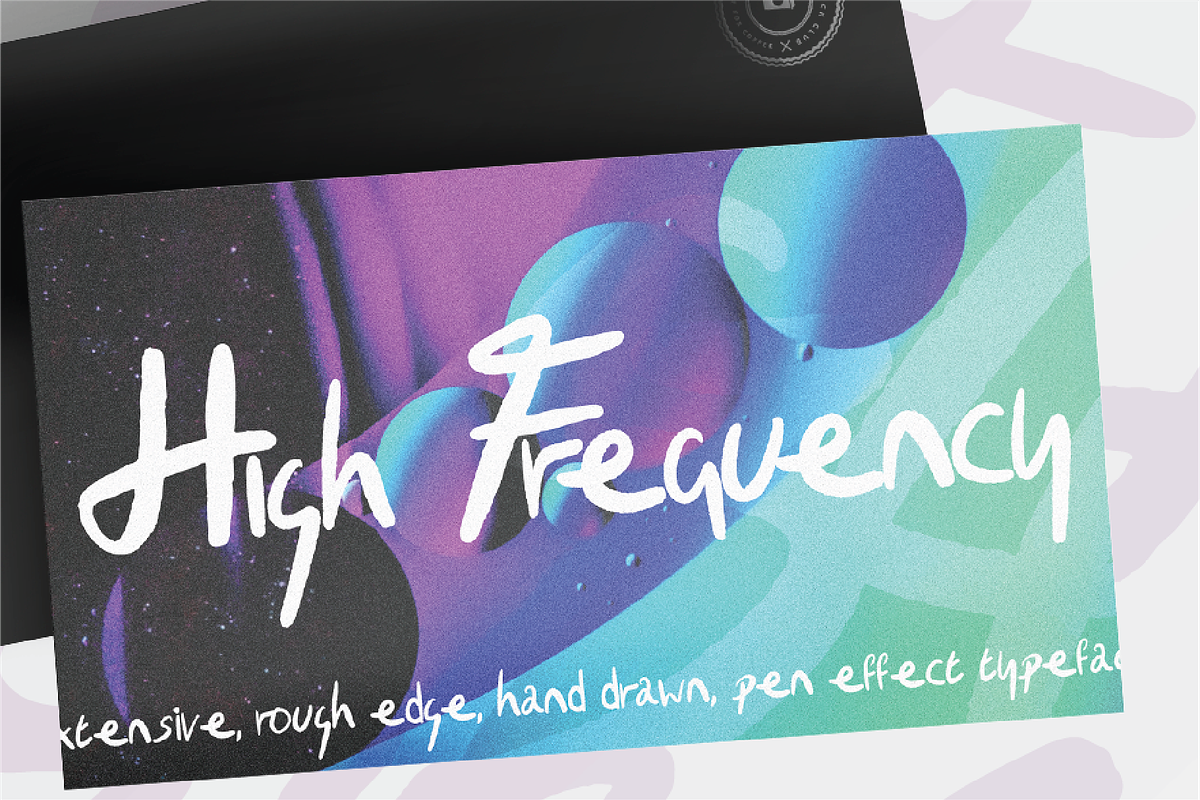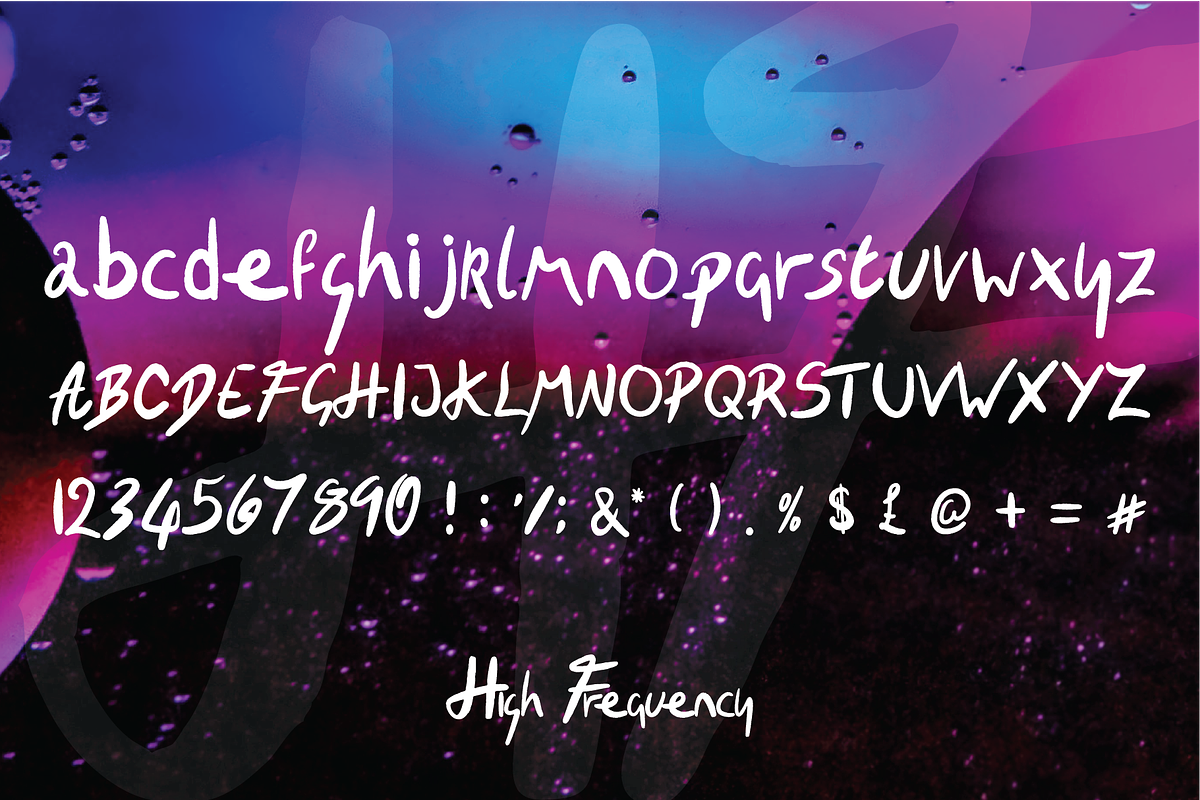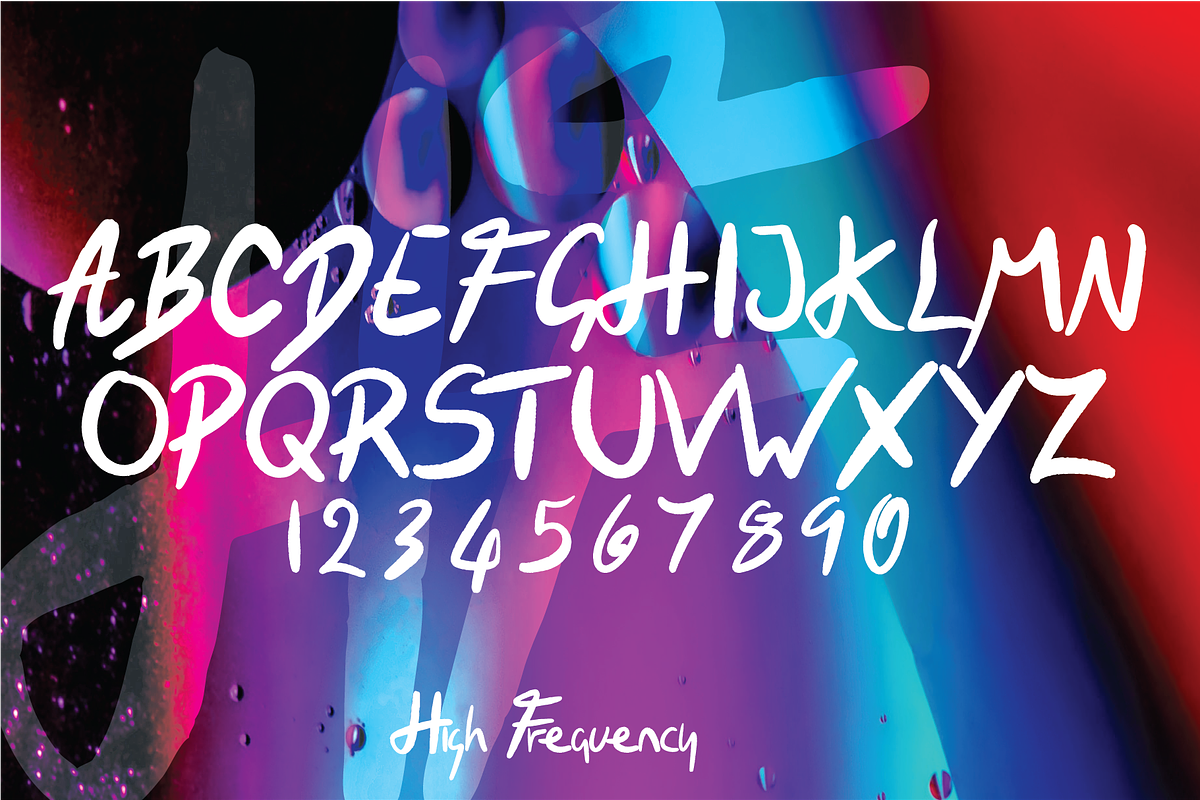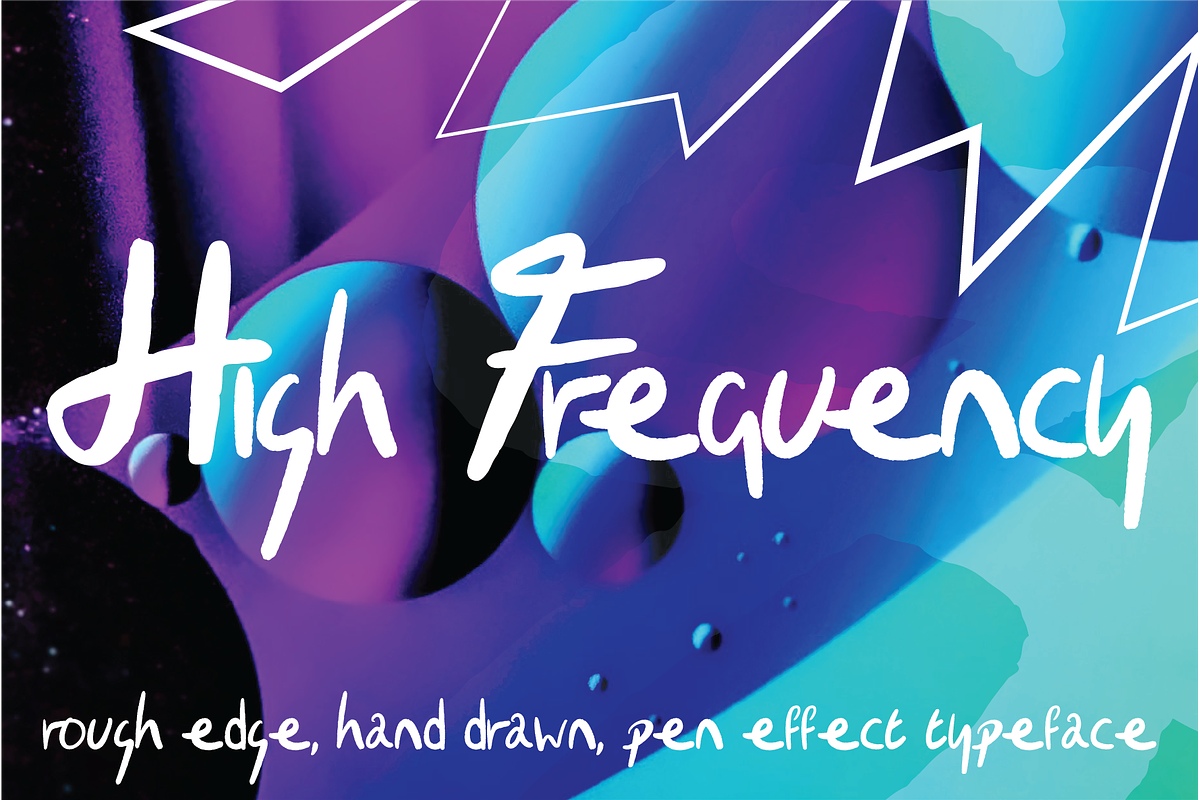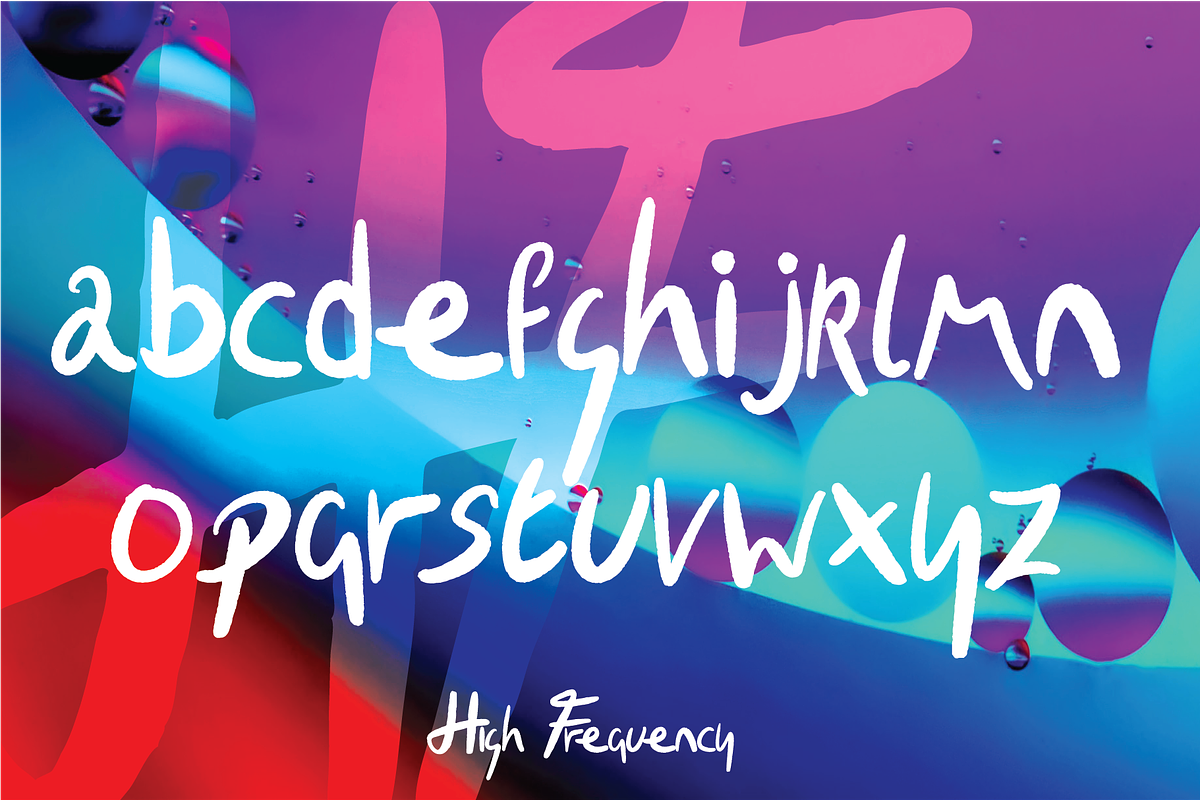
High Frequency hand lettered script
High Frequency is an epic flowing hand drawn script font that blends a classy script and hand lettered down to earth pen and paper vibes!